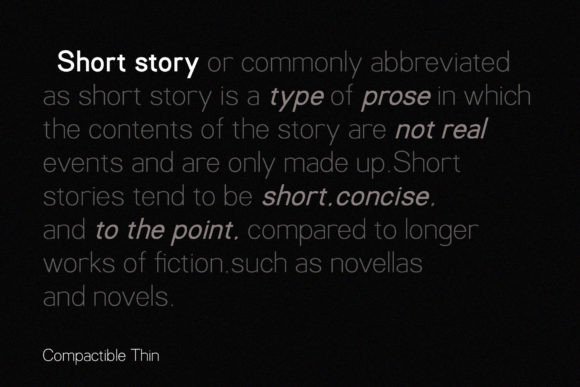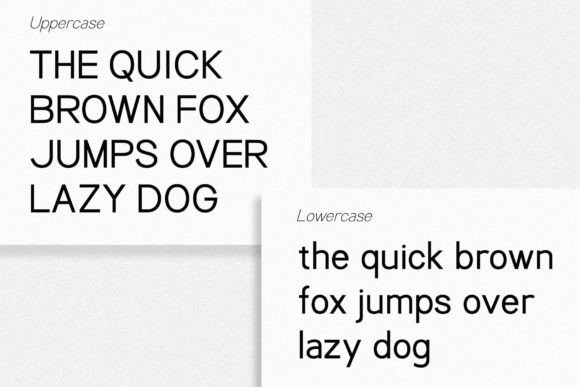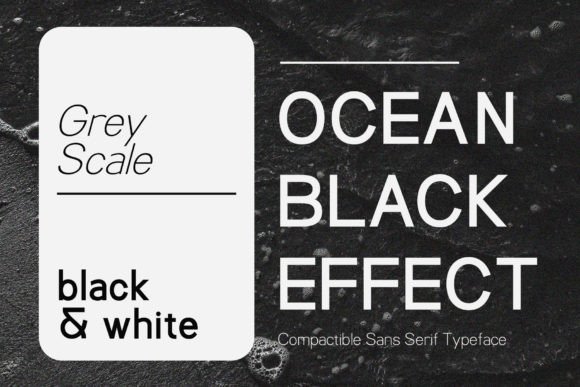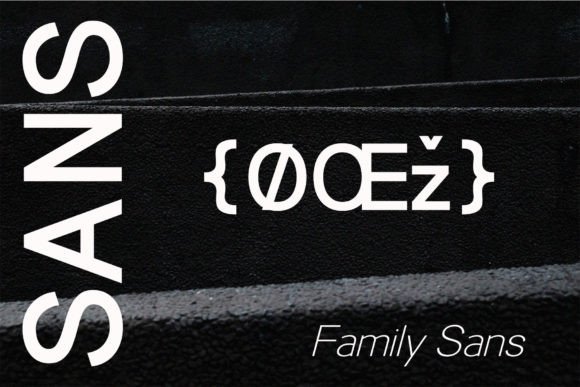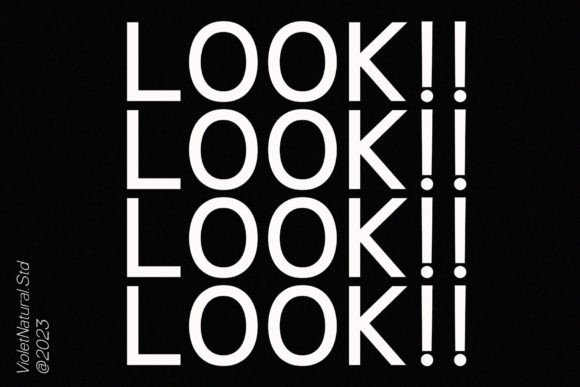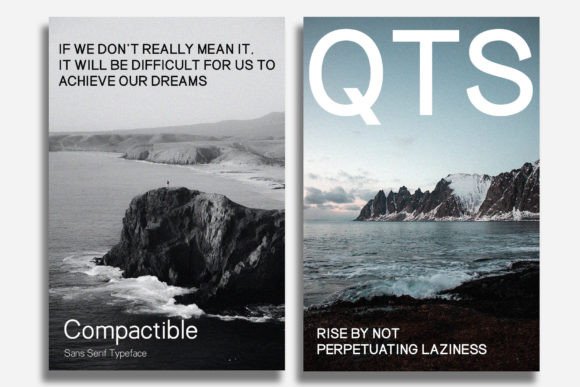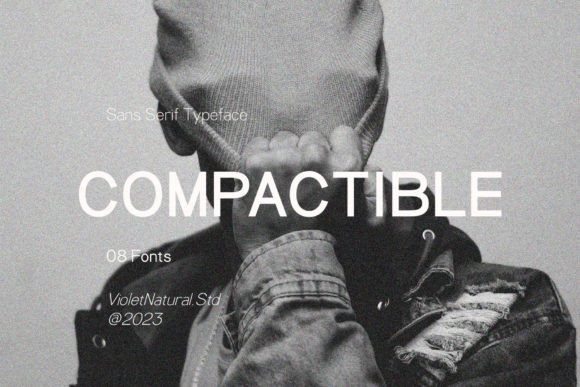
Introducing Compactible Font: The Ultimate Sans Serif for Modern Designs
In the world of typography, a font can make or break a design. For designers and crafters, finding the perfect font that embodies sophistication, class, and modernity can be a daunting task. However, look no further than Compactible Font, a sleek and professional sans serif font that is sure to elevate your designs to the next level.
Clean and Minimalist Design
Compactible Font boasts a clean and minimalist design that makes it perfect for corporate branding, editorial layouts, and website designs. Its simplicity and elegance ensure that your message is conveyed clearly and effectively, without any distractions. The font’s streamlined aesthetic also allows it to adapt seamlessly to various design contexts, from digital platforms to print materials.
Versatility and Legibility
One of the standout features of Compactible Font is its versatility and legibility. The font’s carefully crafted letterforms ensure that it remains clear and readable even at small font sizes, making it an excellent choice for body text and captions. Additionally, its neutral tone allows it to pair well with a wide range of design elements, from bold graphics to delicate illustrations.
Perfect for Modern and Polished Designs
Compactible Font is designed to meet the demands of modern design. Its sleek lines, precise curves, and balanced proportions create a polished appearance that is sure to impress. Whether you’re working on a corporate website, a fashion editorial, or a product packaging design, Compactible Font is the perfect choice for designers who strive for perfection.
A Must-Have for Designers
For designers and crafters, having a reliable and versatile font in their toolkit is essential. Compactible Font is a must-have for any designer looking to elevate their designs and create a lasting impression. Its professional and sophisticated aesthetic ensures that your designs will stand out from the crowd and leave a lasting impact on your audience.
Key Features of Compactible Font
• Sleek and professional sans serif font: Compactible Font exudes sophistication and class, making it perfect for modern designs.
• Clean and minimalist design: The font’s simplicity and elegance ensure that your message is conveyed clearly and effectively.
• Versatility and legibility: Compactible Font is carefully crafted for optimal readability and adaptability.
• Perfect for corporate branding, editorial layouts, and website designs: The font’s neutral tone and polished appearance make it an excellent choice for a wide range of design applications.
Tips for Using Compactible Font
To get the most out of Compactible Font, here are some tips to keep in mind:
• Pair it with bold graphics: Compactible Font’s neutral tone makes it an excellent choice for pairing with bold graphics and illustrations.
• Use it for body text: The font’s legibility and readability make it perfect for body text and captions.
• Experiment with font sizes: Compactible Font remains clear and readable even at small font sizes, making it versatile for various design applications.
In conclusion, Compactible Font is a sleek and professional sans serif font that is sure to elevate your designs to the next level. Its clean and minimalist design, versatility, and legibility make it a must-have for any designer looking to create modern and polished designs. Whether you’re working on a corporate branding project, editorial layout, or website design, Compactible Font is the perfect choice for designers who strive for perfection.